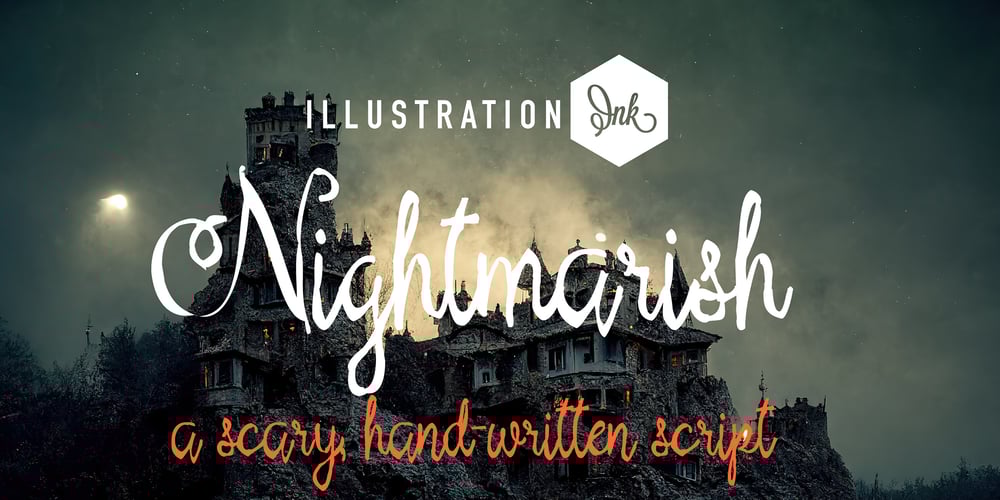
PN Nightmarish
PN Nightmarish font
PN Nightmarish Font Family was designed by Illustration Ink and published by Illustration Ink. PN Nightmarish contains 1 styles and family package options. This rough, hand-written script is a traditional cursive font with sharp angles and lines for a more frightened, fearful look.A hand-crafted font is a font that is designed to look like it was written by hand. It is often used for invitations, greeting cards, and other items. Handwritten fonts can be either formal or informal, and they can be used for a variety of purposes.Some of the characteristics of handwritten fonts include: The letters are not perfectly uniform in size or shape. There may be slight variations in the spacing between letters and words. The font may have a “wiggly” or “squiggly” appearance. The font may be difficult to read at small sizes. Handwritten fonts can be a great way to add a casual touch to your designs. They can also be used to create a sense of nostalgia or whimsy. However, it is important to choose a handwritten font that is appropriate for the project you are working on. A formal handwritten font may not be appropriate for a casual invitation, while an informal handwritten font may not be appropriate for a corporate document.